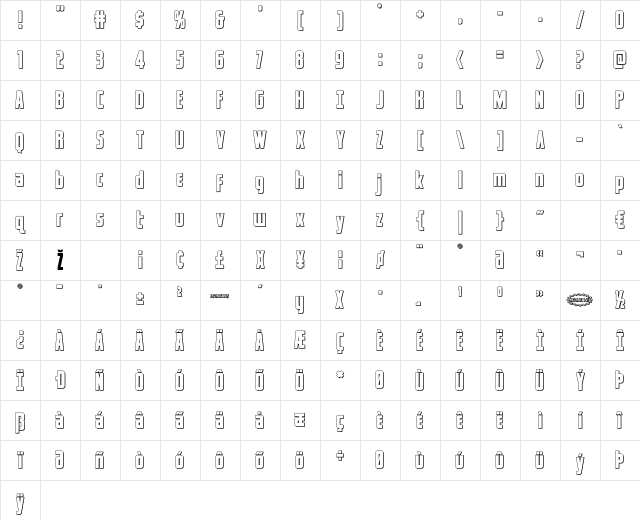
Complete Captain Canaveral Outline glyph index. Displaying only characters natively supported by Captain Canaveral Outline font.
Captain Canaveral Outline is built around its visual character rather than neutral utility - its distinctive forms are designed to make an impression at display sizes.